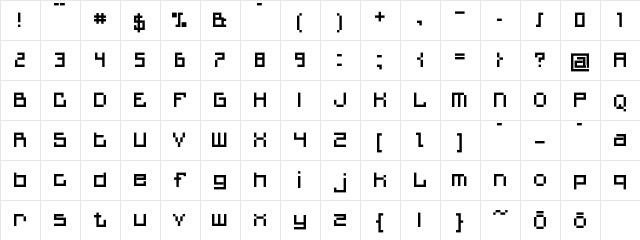
MiniQuan Regular
| Foundry | barmee.com |
| Designer | bartek nowak |
Design Context for MiniQuan Typeface
MiniQuan takes a measured approach to typography — its balanced proportions and neutral character make it a reliable workhorse for both digital and print work.